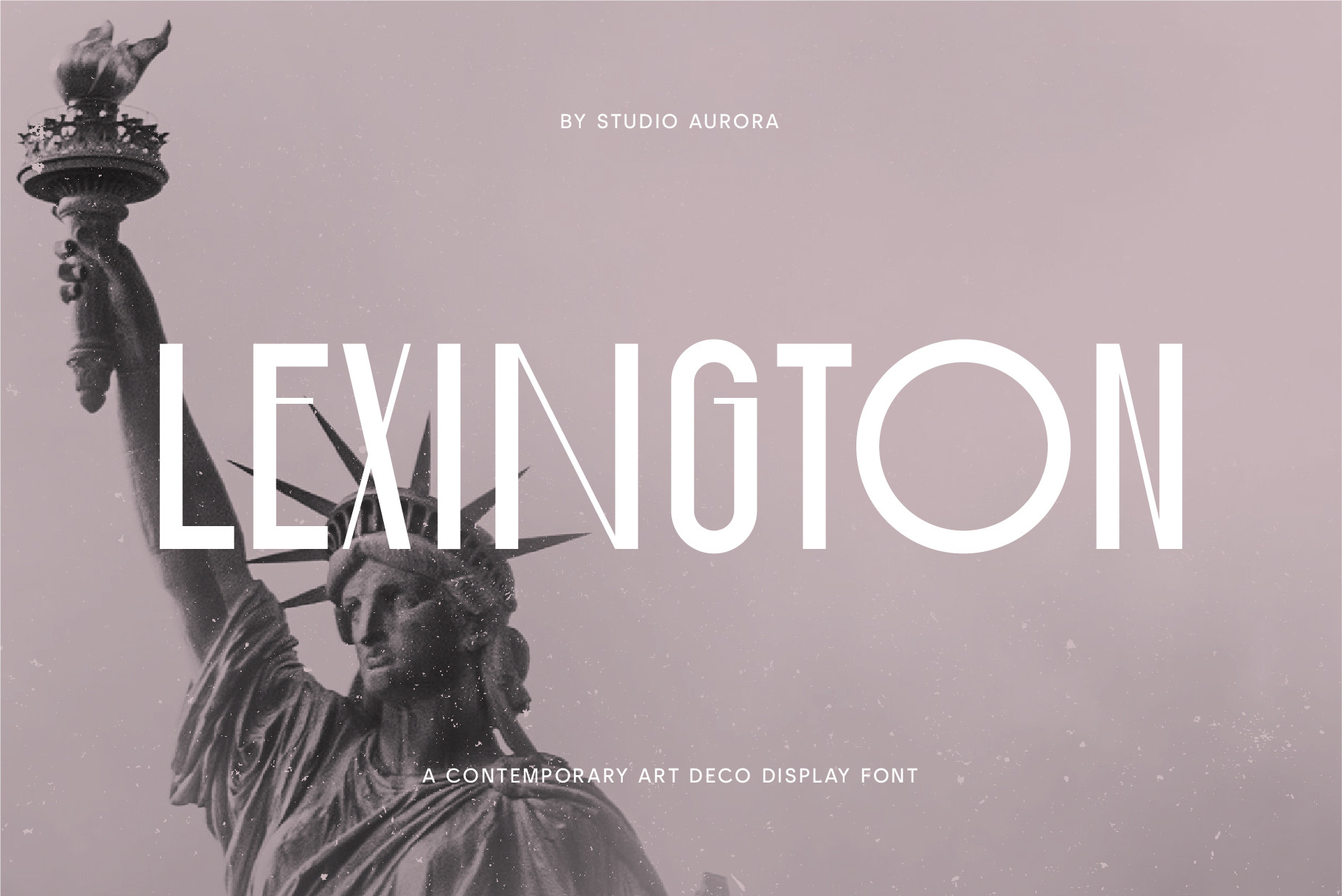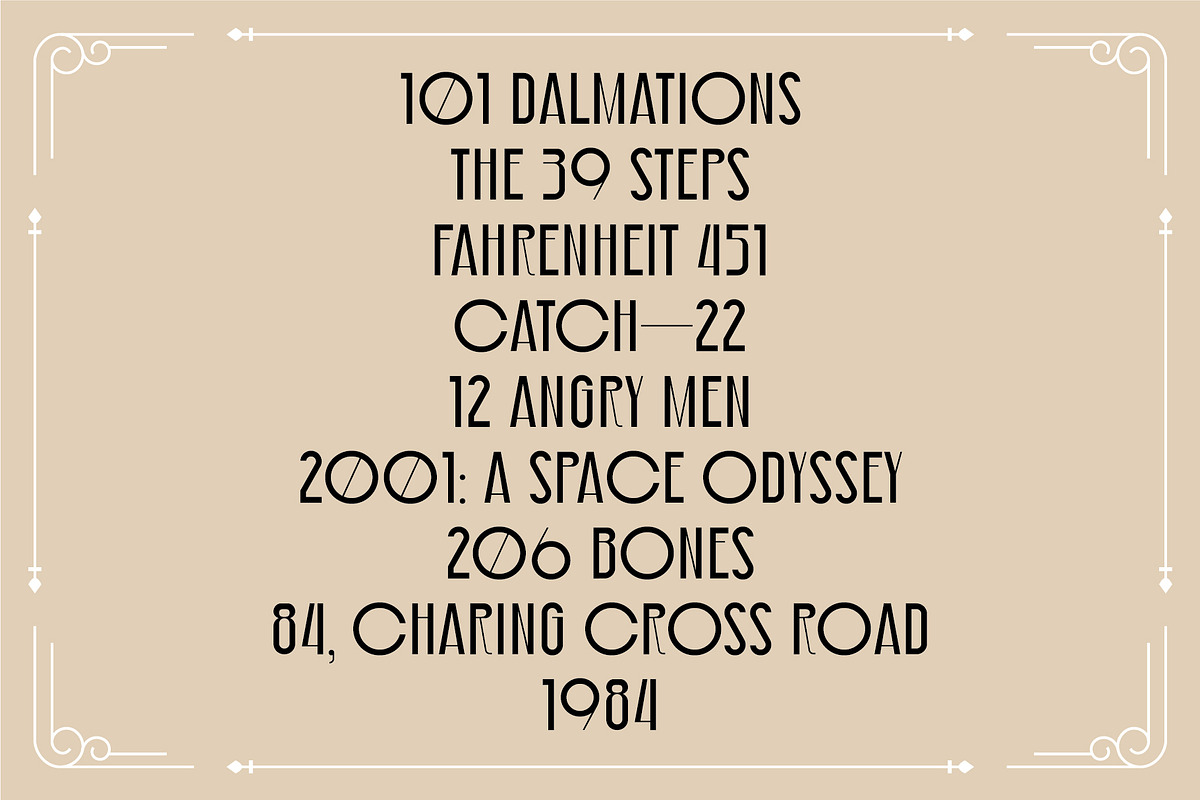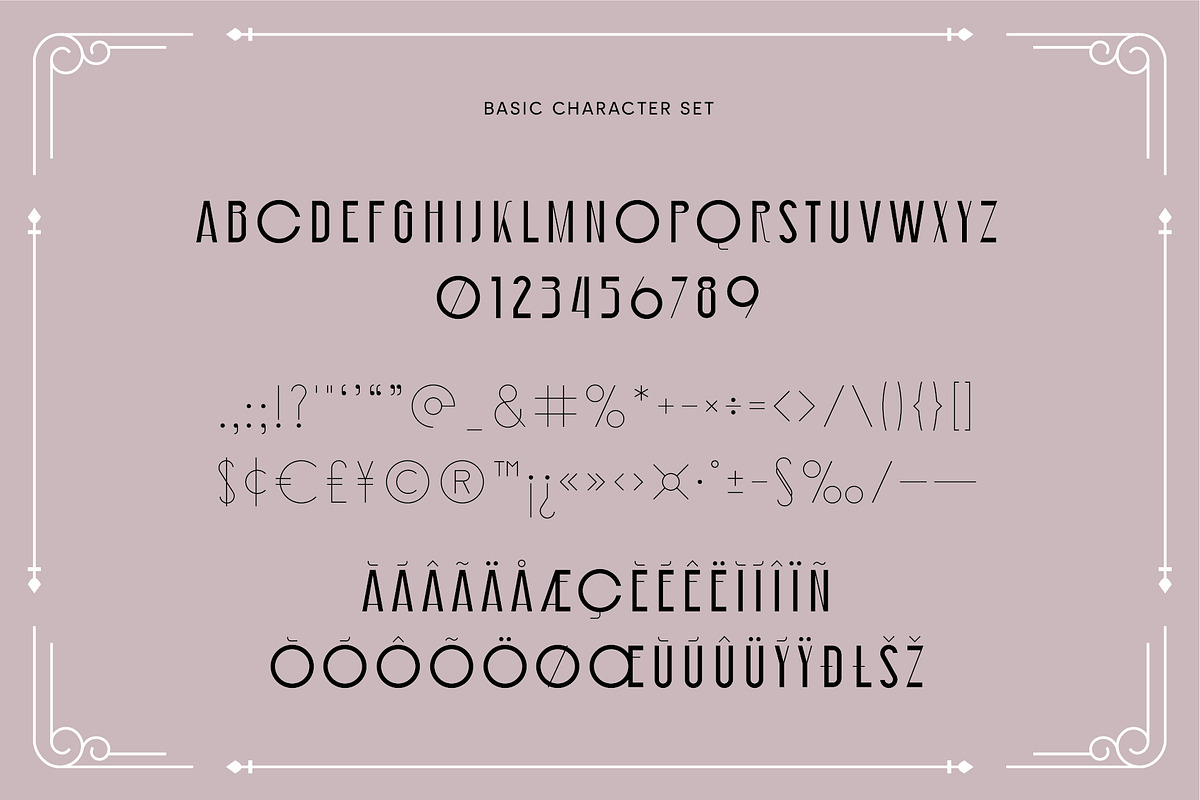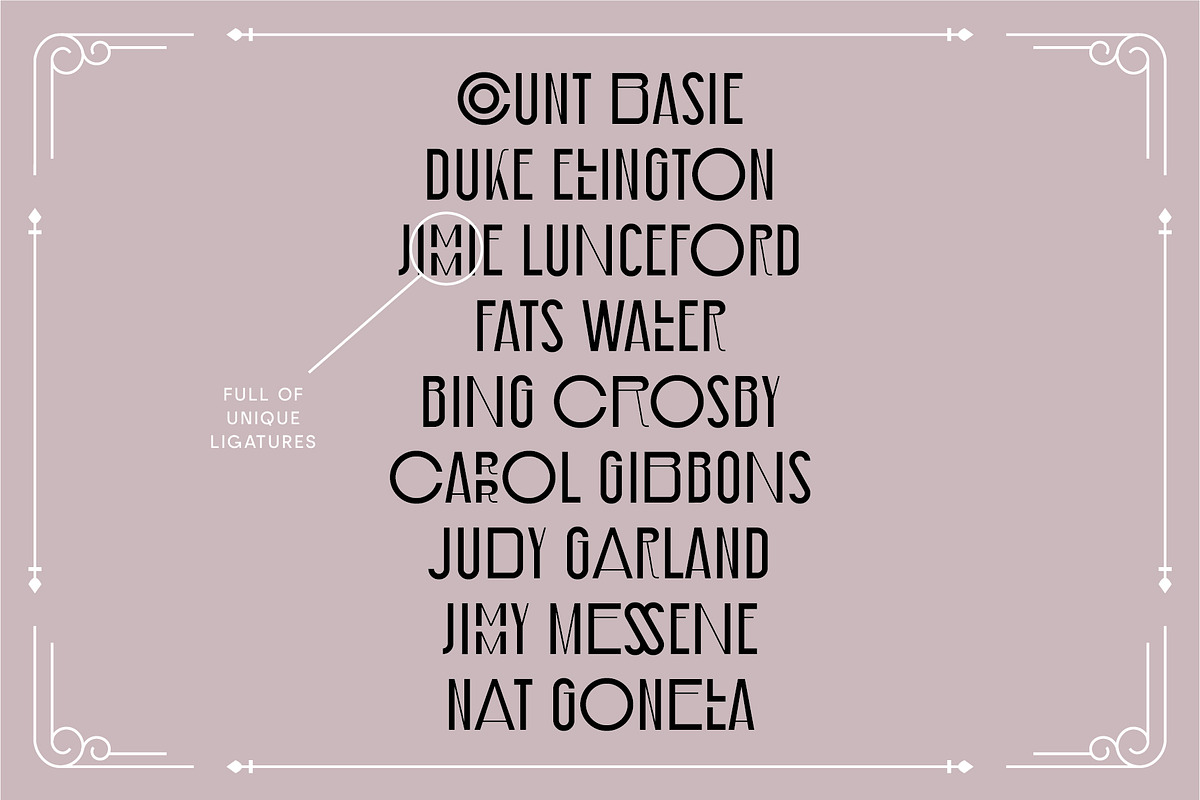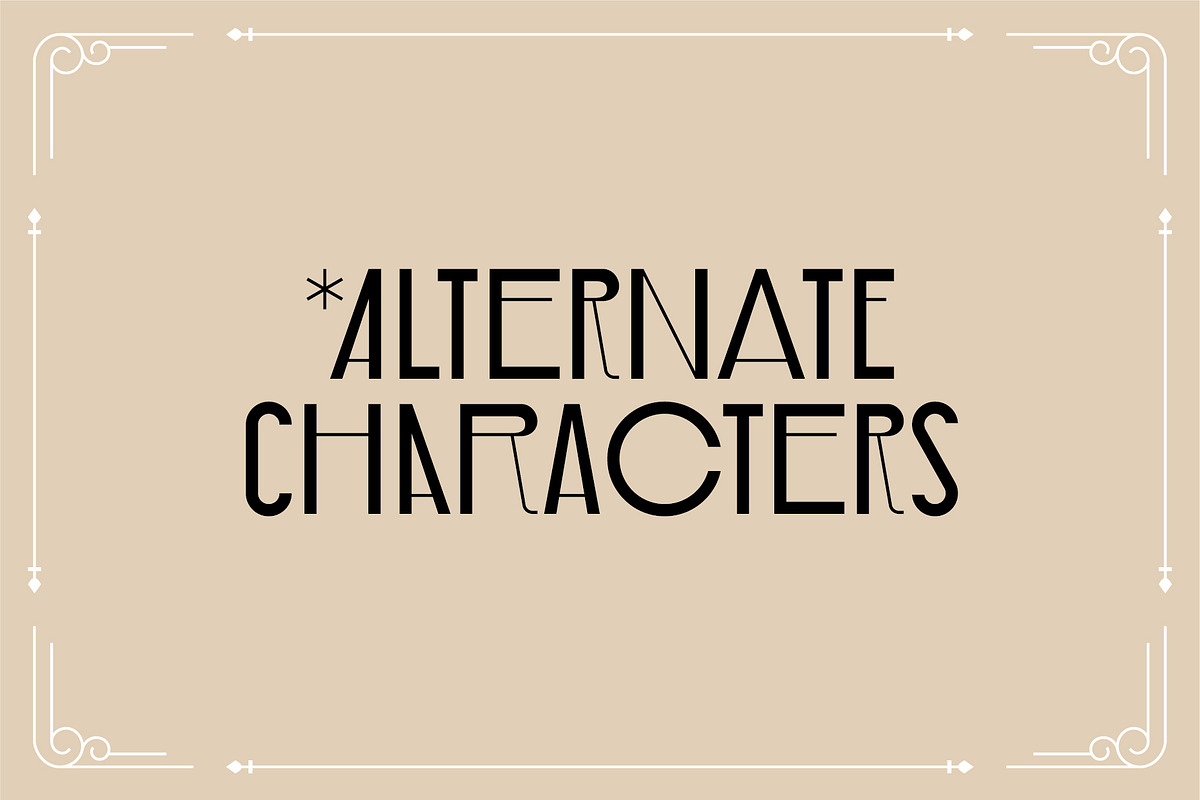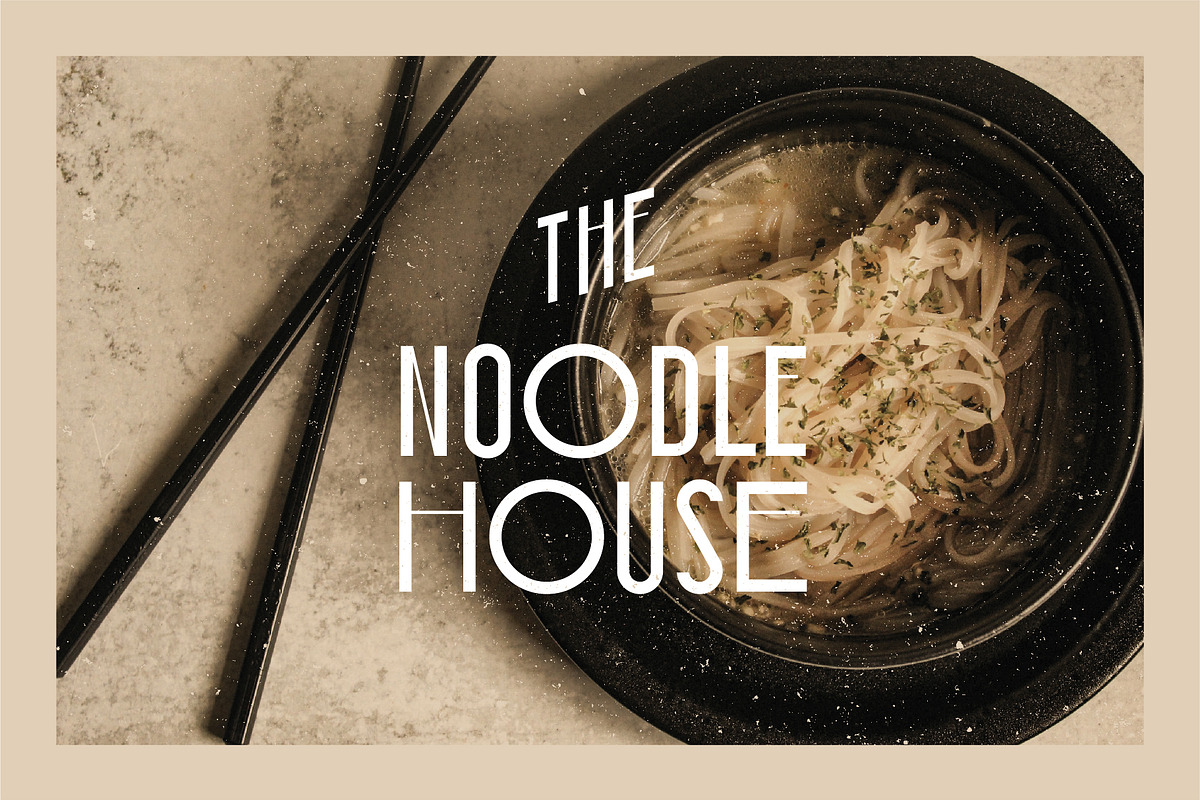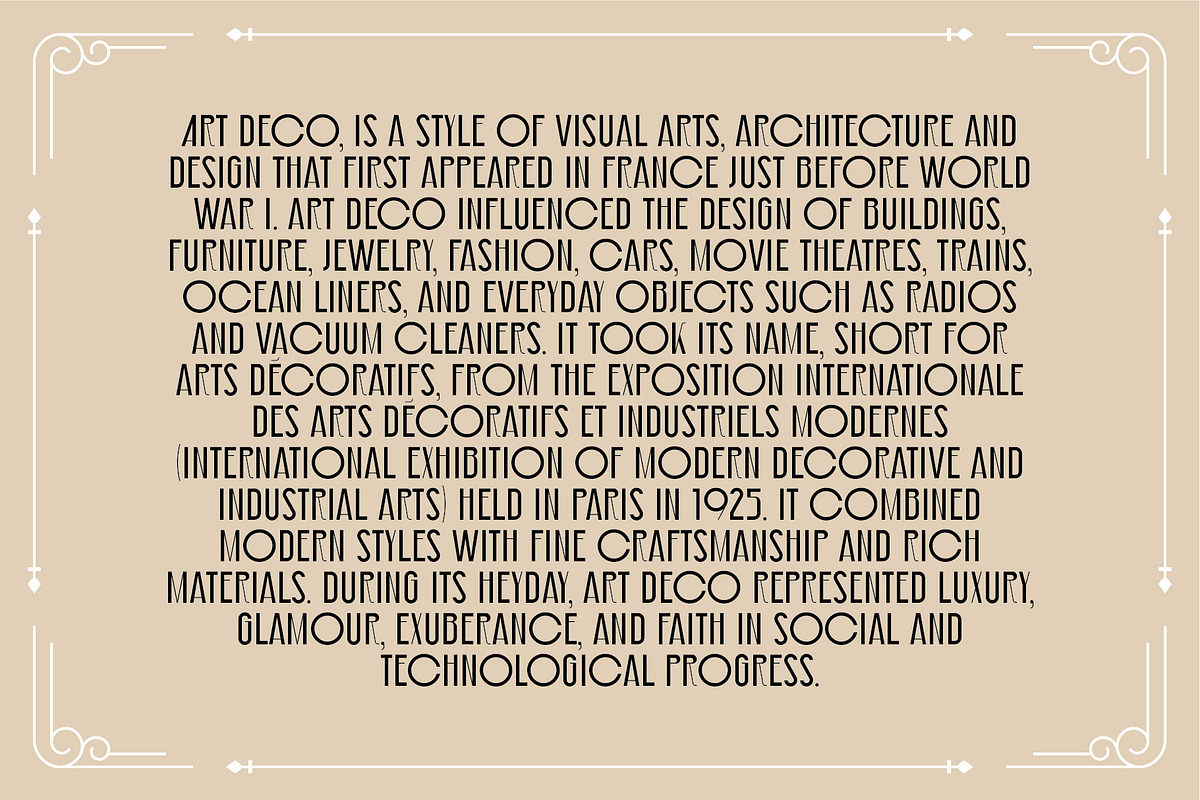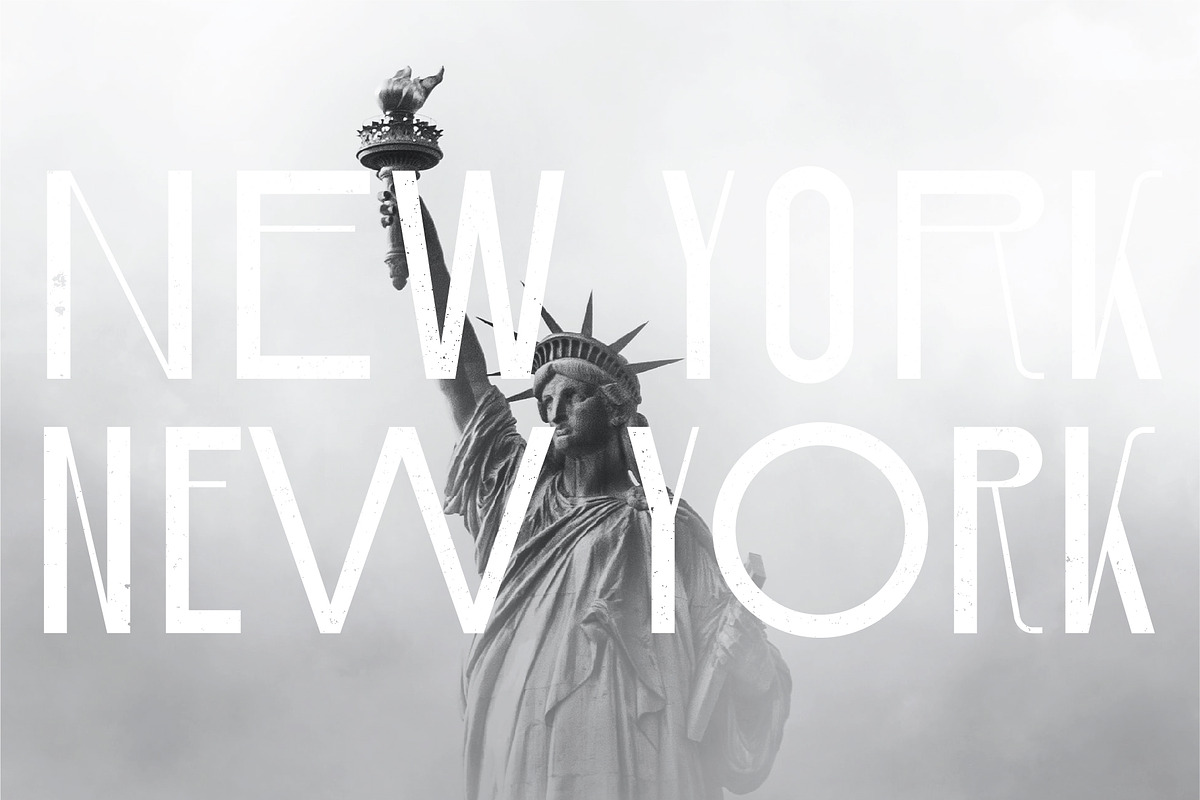
Lexington – Art Deco Display Font
Say hello to Lexington - a contemporary, art deco-inspired display serif font full of character, quirky ligatures, and glyphs to keep your designs fresh.
This is a display font that we recommend using in the following types of work; magazines (titles and layouts), logos and branding, invitations, quotes, blog headers, posters, and advertising.
Language Support: Afrikaans, Albanian, Catalan, Danish, Dutch, English, French, German, Italian Norwegian, Portuguese, Spanish, Swedish and Zulu.
- Alternate glyphs
- Standard and Discretionary Ligatures